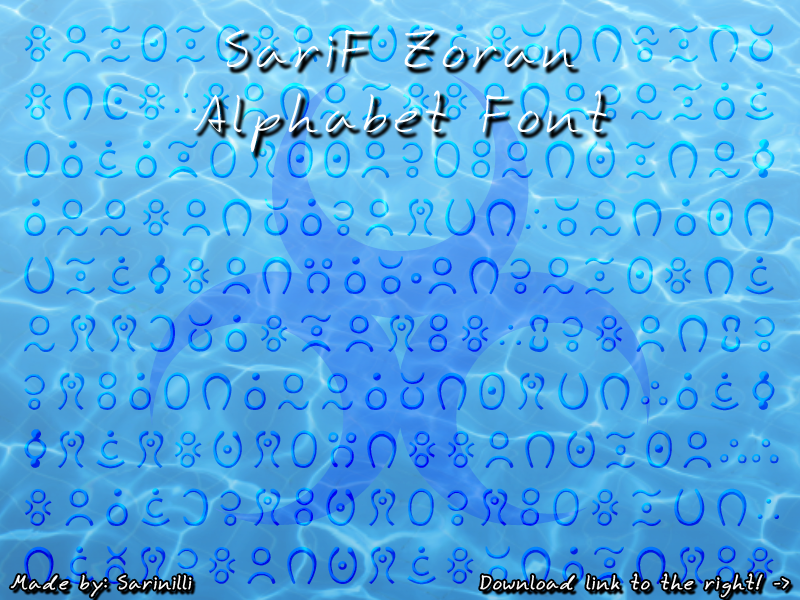
What better way to represent the language of a watery folk, but with rounded characters. the concept of water and bubbles was my inspiration for this alphabet.
It's a bummer you never really see the Zoran text in Majora's Mask, so I didn't get anything but my crazy ideas to help this alphabet into creation. This is a fan alphabet, and the only Zoran alphabet there is!
Since the alphabet doesn't "really" have q, it has no glyph of it's own in the font's internals- It is however mapped to the same glyph as k.